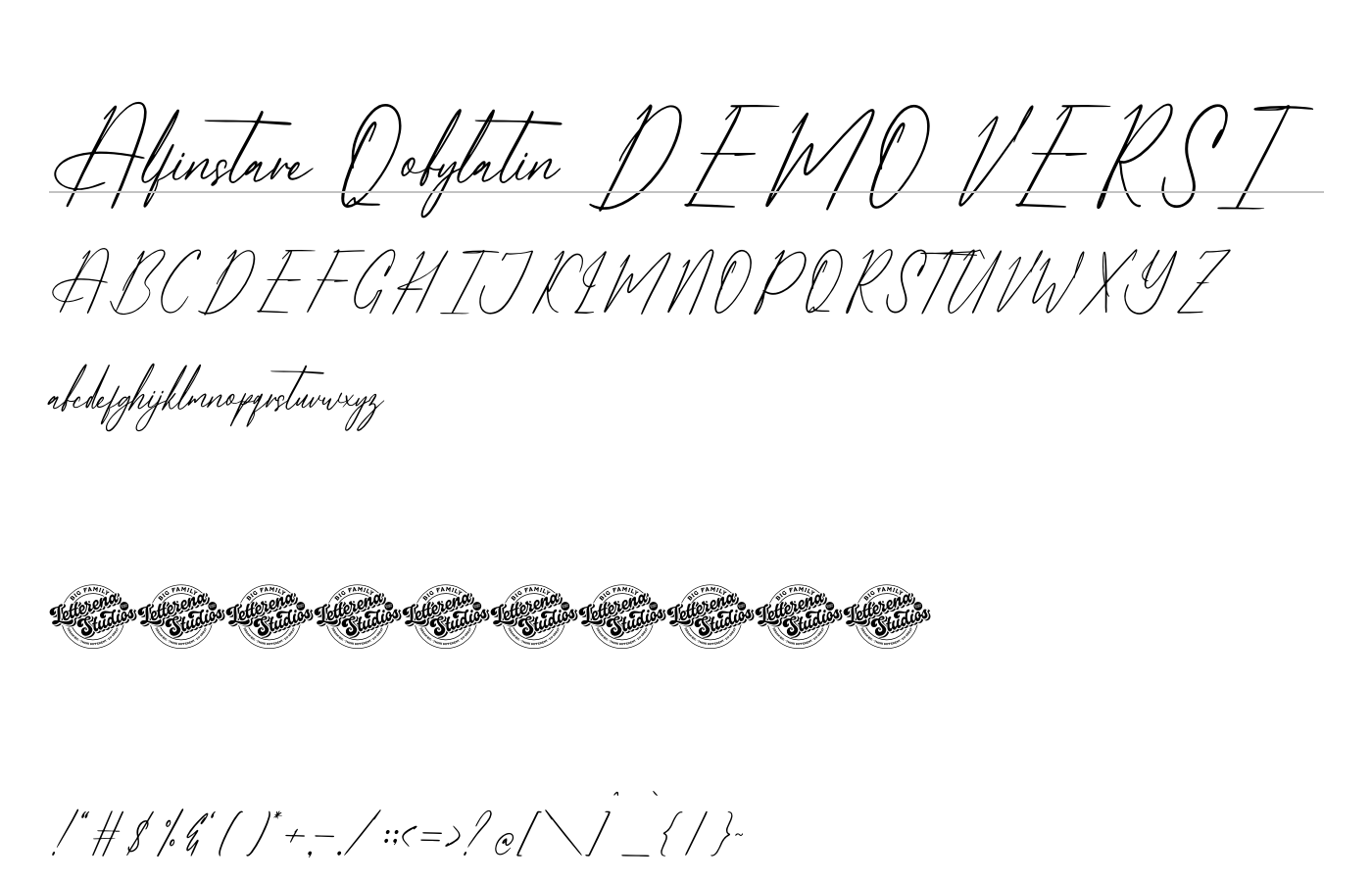
Alfinstare Qobylatin DEMO VERSI is a delicate and elegant script font with a hand-drawn, calligraphic style characterized by thin, flowing strokes and a slightly irregular, natural feel. Its tall, slender letterforms and refined connections create a sophisticated, graceful impression ideal for invitations, branding, and creative projects that seek a personal yet stylish touch. This font works beautifully in designs that require an understated elegance with a modern, artistic flair.
Alfinstare Qobylatin DEMO VERSI Font
About Alfinstare Qobylatin DEMO VERSI Font
| Font family | Alfinstare Qobylatin DEMO VERSI Font |